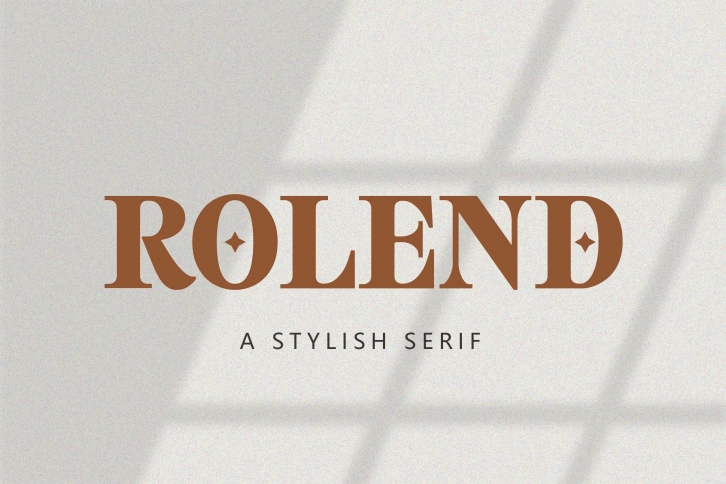
Rolend is a modern stylish serif font. Can be used in various promotional purposes. It is suitable for any branding, product packaging, invitation, quote, t-shirt, label, poster, logo that you wish to develop.